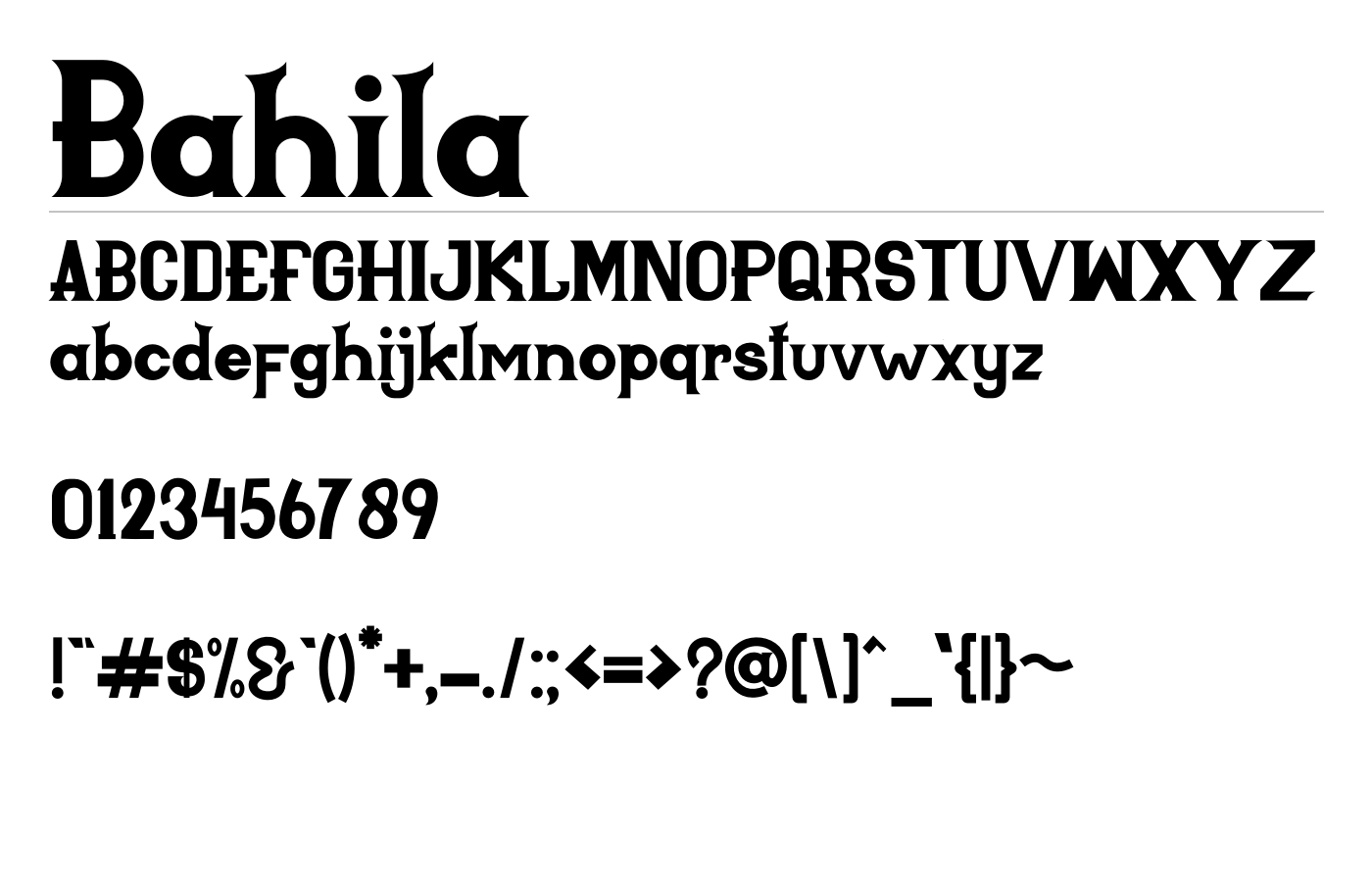
Bahila is a bold slab serif font with a strong and distinctive presence, characterized by its thick, blocky serifs and high contrast between thick and thin strokes. It combines vintage charm with modern robustness, making it ideal for eye-catching headlines, logos, and branding projects where a bold, confident style is needed. Its unique letterforms and solid structure give it a versatile, sturdy personality that works well in editorial designs and packaging that aim to stand out with authority and style.
Bahila Font
About Bahila Font
| Font family | Bahila Font |
| Designer | Yayan Sihwadi |
| Trademark | Yan Studio™ |